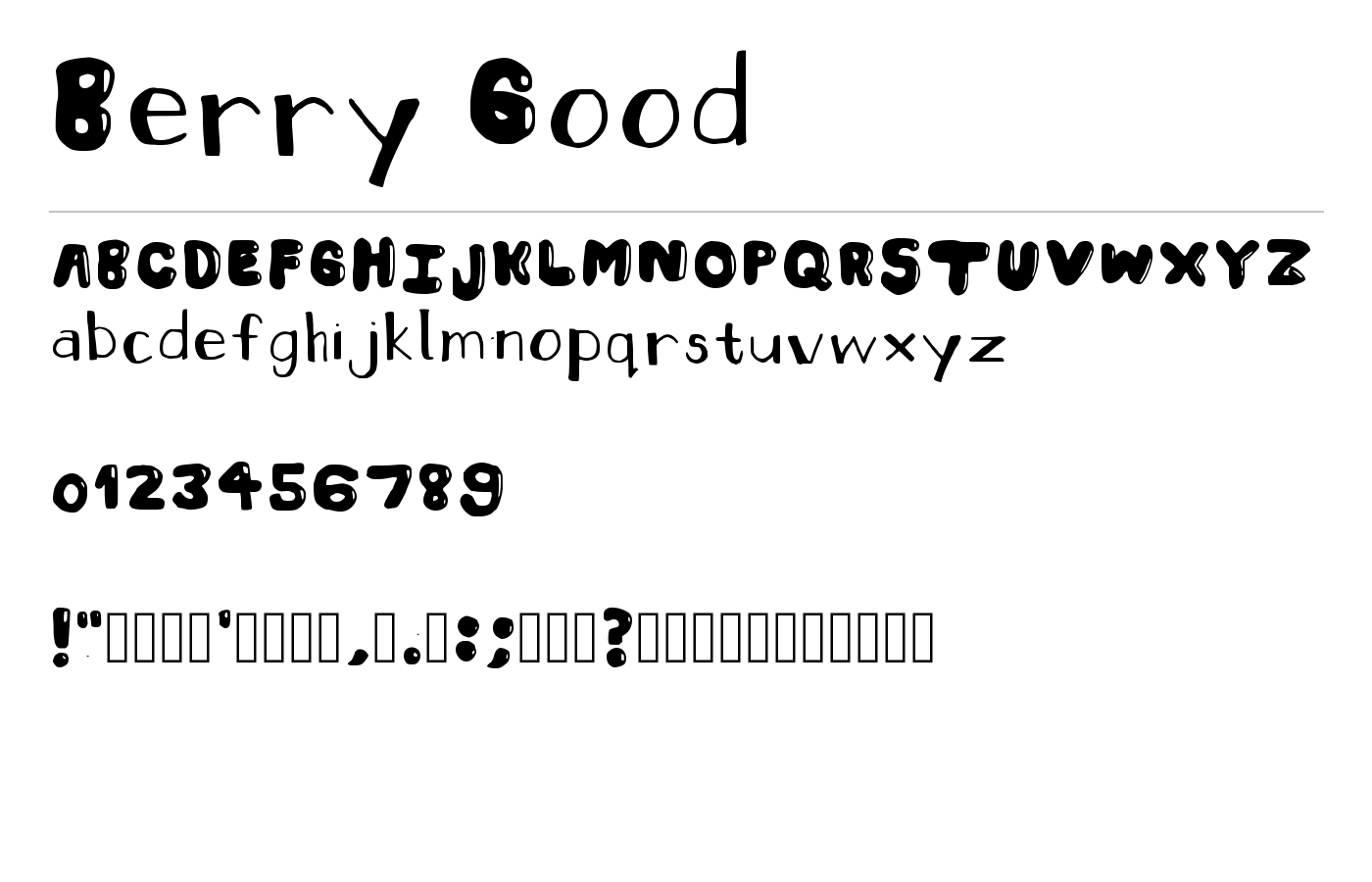
Berry Good Font is a playful and quirky sans serif typeface with a mix of bold, chunky uppercase letters and more delicate, irregular lowercase forms. Its uneven strokes and whimsical shapes create a fun, hand-drawn feel that’s perfect for casual, creative projects like children’s books, posters, and unique branding. This font works well when you want to add personality and a lighthearted vibe to your design.
Berry Good Font
About Berry Good Font